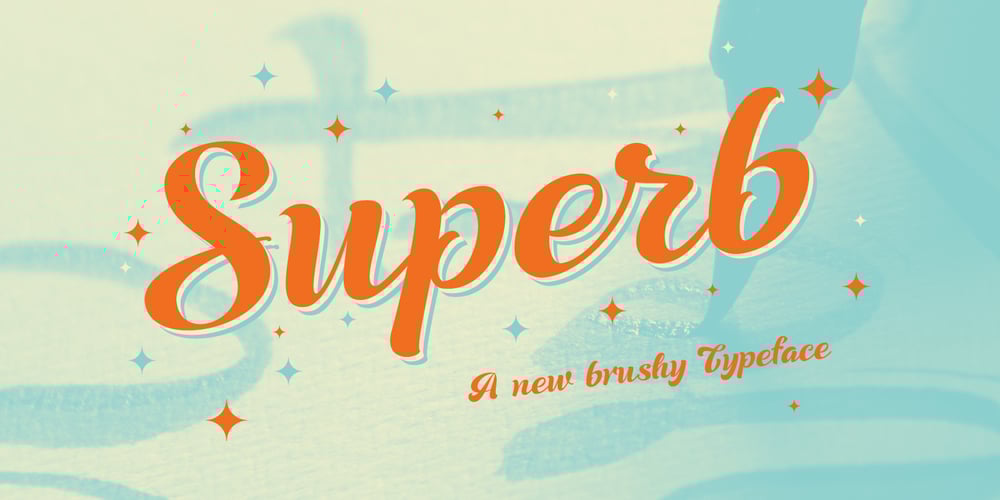
Superb Font Family was designed by published by Resistenza. Superb contains 1 styles and family package options. Superb is a new typeface based on real brush pen script and also influenced by lettering shapes from the sixties and seventies. The font includes various swashes with volume and curls.. Superb’s letters got high contrast and some psychedelic curves. This font includes negative figures and a full alphabet set with cut out shapes. Take a look at the Superb Video https://vimeo.com/94062611 It’s designed with high contrast and enhanced legibility regardless its artistic look. Superb’s original letterforms are a beautiful piece of art and elegance no matter you observe them as separate symbols or as words, text paragraphs etc. Their appropriate use could be found therefore in many different aspects – from decorative greeting card, fresh packaging or expressive headline, to artistic t-shirt design, poster or distinguished brand name. Superb has a lot more to show when you access its OpenType features.